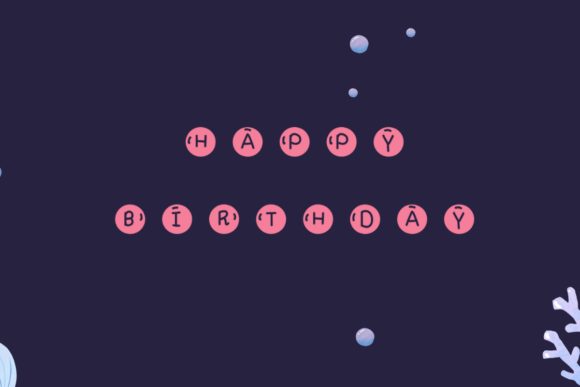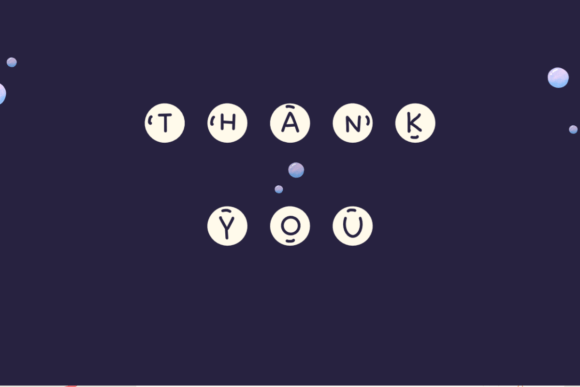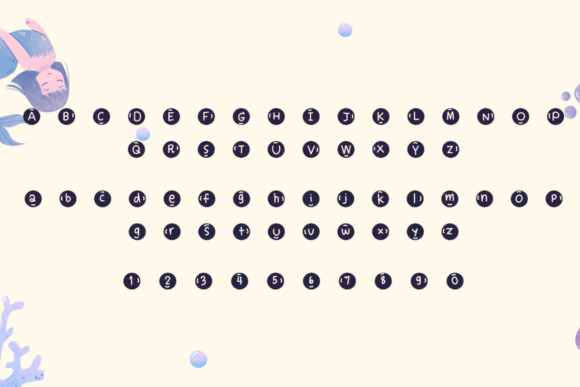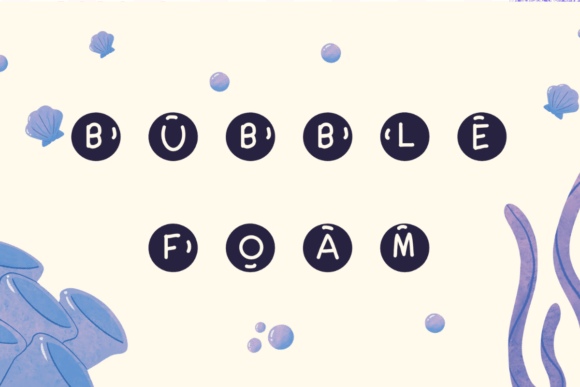
The Joyful World of Bubble Foam Font
I’ll never forget the time I was working on a project for a children’s birthday party, and I just couldn’t find the right font to capture the playful vibe I was going for. The design was supposed to be fun, bubbly, and engaging, but every font I tried seemed either too boring or too over-the-top. That’s when I stumbled upon Bubble Foam Font, and it was love at first sight! 💕
This cute and quirky display font has a way of adding an incredibly joyful touch to any design. In this article, I’ll share my honest review of Bubble Foam Font, provide a practical guide on how to use it, and explore some similar fonts you might enjoy.
My Honest Review of Bubble Foam Font
- ✨ Its playful, bubbly aesthetic is perfect for designs that need a fun twist
- ✅ The font is highly legible, even at smaller sizes
- 💫 It comes with a range of OpenType features, glyphs, and stylistic alternates to give you creative control
- 🎉 The font is versatile and can be used for a wide range of projects, from party invitations to social media graphics
While Bubble Foam Font is an amazing addition to any design, there are a few things to keep in mind:
- 🤔 The font can be a bit overpowering if used for large blocks of text. It’s best suited for headlines, titles, or short paragraphs.
- ⚠️ Some of the more intricate glyphs and stylistic alternates may not display correctly on all devices or platforms.
A Practical Guide to Using Bubble Foam Font
The Backstory of Bubble Foam Font
Bubble Foam Font was designed by a team of creatives who wanted to capture the playful, carefree spirit of childhood. Inspired by the bubbles and foam of a child’s bath time, the font is meant to evoke a sense of joy and wonder. Whether you’re designing for kids or simply want to add a touch of whimsy to your project, Bubble Foam Font is the perfect choice.
Q: Can I use Bubble Foam Font for my social media graphics?
A: Absolutely! Bubble Foam Font is perfect for creating fun and engaging social media graphics.
Q: Does Bubble Foam Font come with a range of languages?
A: Yes, Bubble Foam Font supports a range of languages, including English, Spanish, French, and more.
Q: Can I use Bubble Foam Font for my party invitations?
A: Yes, Bubble Foam Font is a great choice for party invitations, especially for kids’ birthday parties or other celebrations.